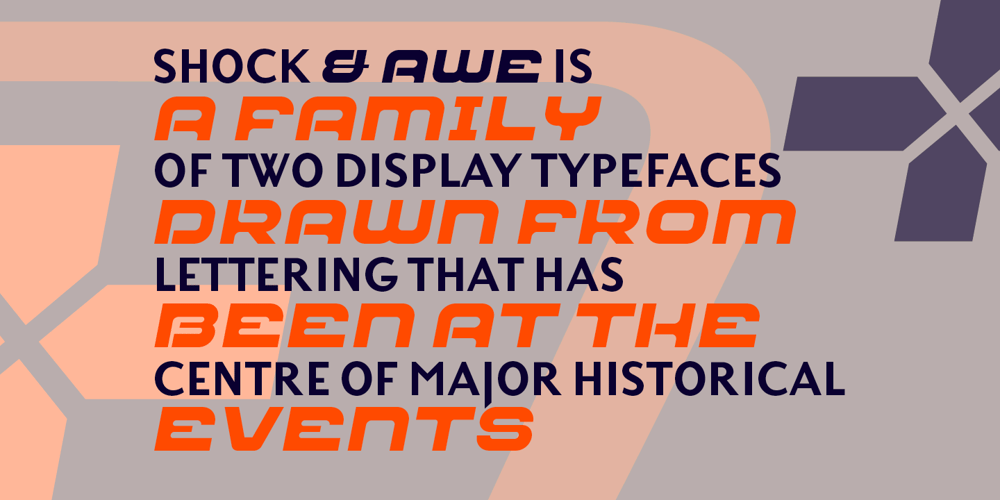
Shock & Awe Font Family was designed by Marcus Leis Allion, Jonathan Barnbrook and published by Barnbrook Fonts. Shock & Awe contains 2 styles and family package options. Shock and Awe is a family of two display typefaces drawn up from lettering that has been at the centre of major historical events. Enola Gay is based upon nose art from the B-29 Superfortress bomber that dropped the first atomic bomb, on the Japanese city of Hiroshima, in 1945. Tomahawk is based upon the fuselage lettering of the original (then) General Dynamics manufactured Tomahawk cruise missile. Tomahawk missiles were introduced into military service in the 1970s and have been deployed by US and UK ‘coalition’ forces in a number of conflicts, including both the 1991 Gulf War and the 2003 invasion of Iraq. Aesthetic production by Marcus McCallion.